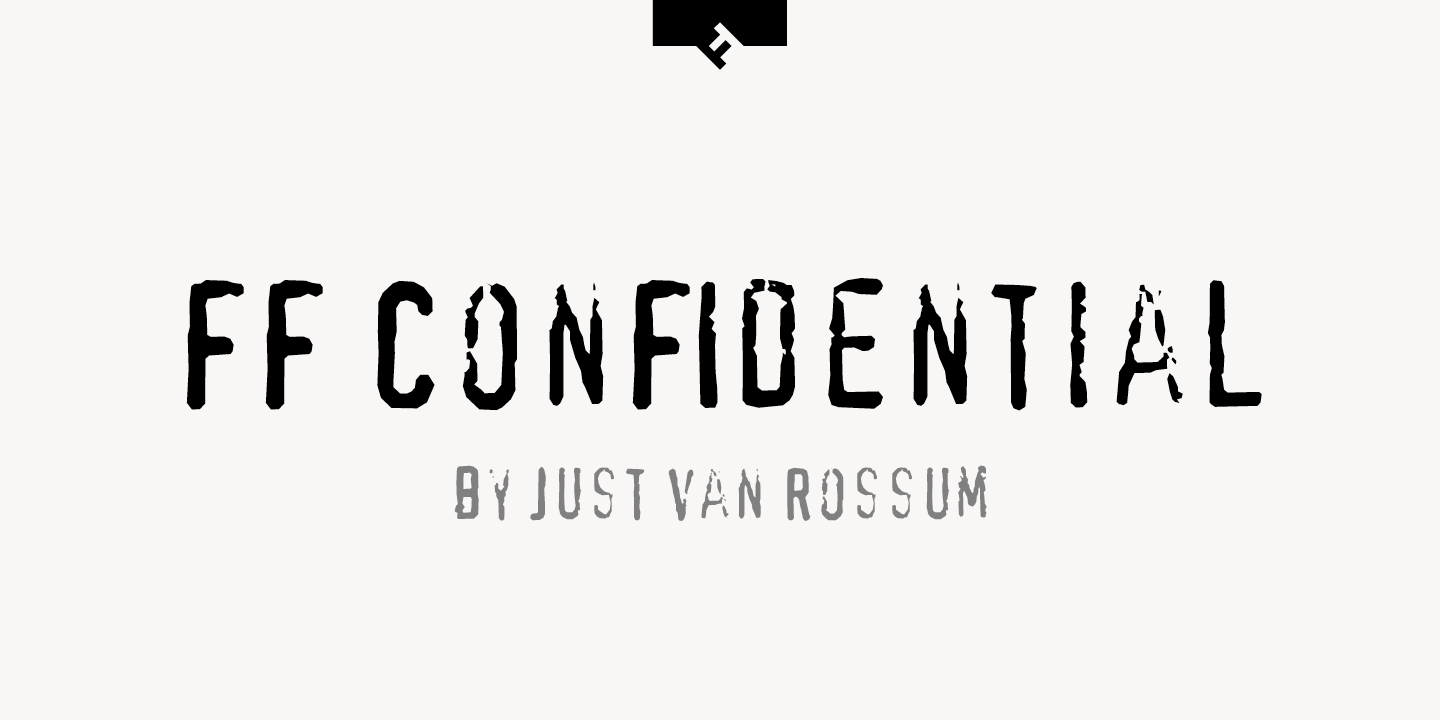
The FF Confidential Font is an excellent choice for projects that demand a modern, unconventional, and highly stylized aesthetic with a strong sense of intrigue. It’s perfectly suited for mystery novel covers, spy thriller movie titles, avant-garde art installations, exclusive event invitations, fashion editorials with an edgy feel, and any design that benefits from a unique, enigmatic, and visually compelling typeface. Its distinctive character makes it ideal for conveying a sense of secrecy, sophistication, and cutting-edge design.
What makes FF Confidential Font so exciting is its audacious and highly experimental approach to letterforms. It often features unusual cuts, unexpected negative spaces, and a deconstructed yet coherent structure, giving your text an immediate sense of intrigue and artistic rebellion. This font isn't just about reading words; it's about deciphering a visual puzzle, inviting the viewer into a world of hidden meanings and bold statements. It excels at creating an atmosphere of mystery and modernity, ensuring your headlines and key messages are unforgettable and undeniably intriguing. Its unique design challenges conventional readability in favor of striking visual impact.
The FF Confidential Font family typically focuses on variations that enhance its avant-garde and impactful nature, as it is primarily a display typeface. You will generally find a strong regular style that embodies its core experimental aesthetic. Given its specific design purpose, extensive weight variations might be less common, but some versions could offer alternative characters or stylistic sets to further explore its unconventional forms and provide more design flexibility. The emphasis is on providing a consistent yet visually arresting identity that resonates with its innovative and secretive inspirations.
Whether you're designing a captivating book cover, crafting an exclusive brand identity, or creating stunning promotional materials that speak to a discerning audience, the FF Confidential Font Free Download offers an indispensable tool. Its artistic appeal and unique character make it a premier choice for any project that requires a typeface of exceptional originality and distinctive flair.